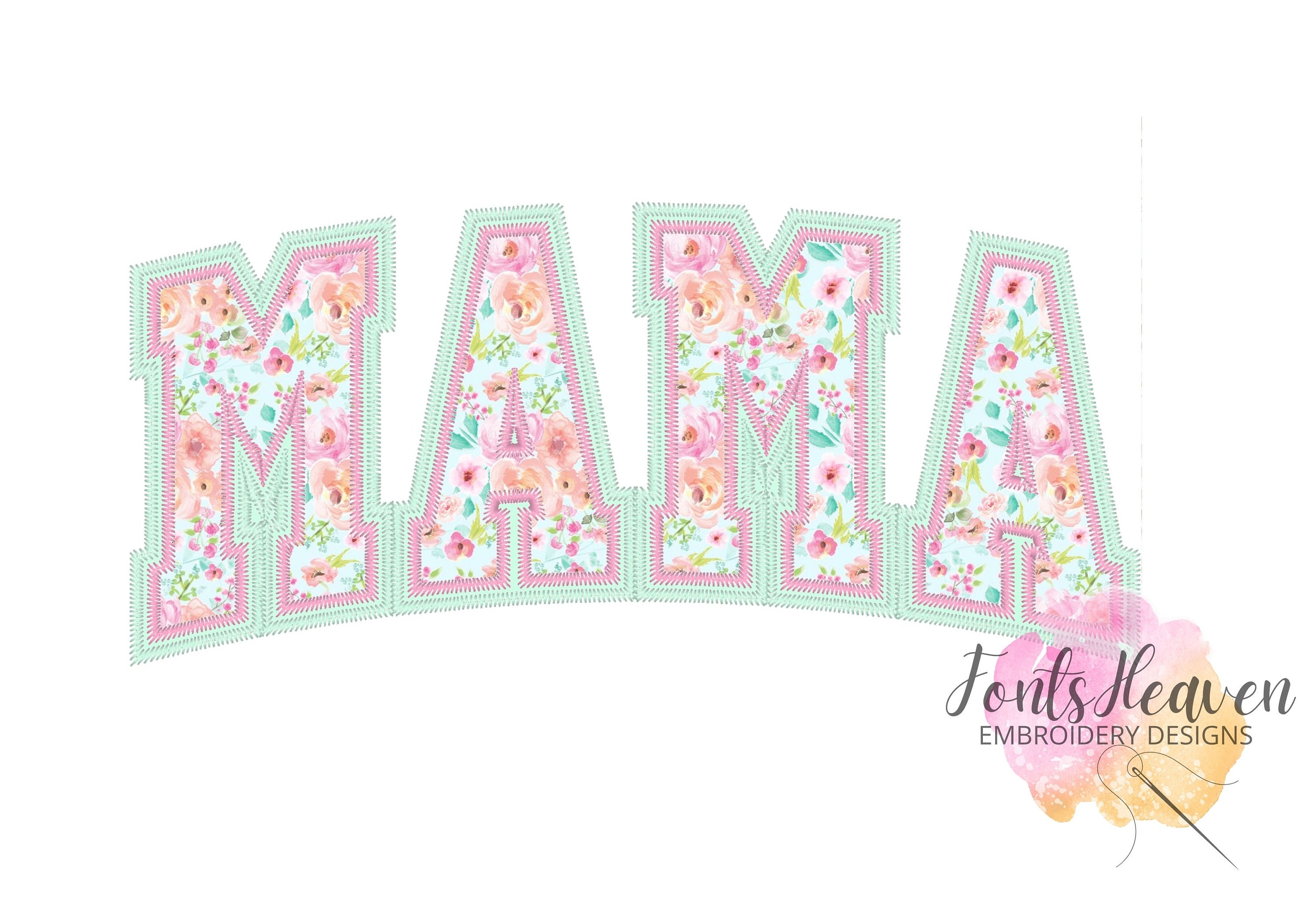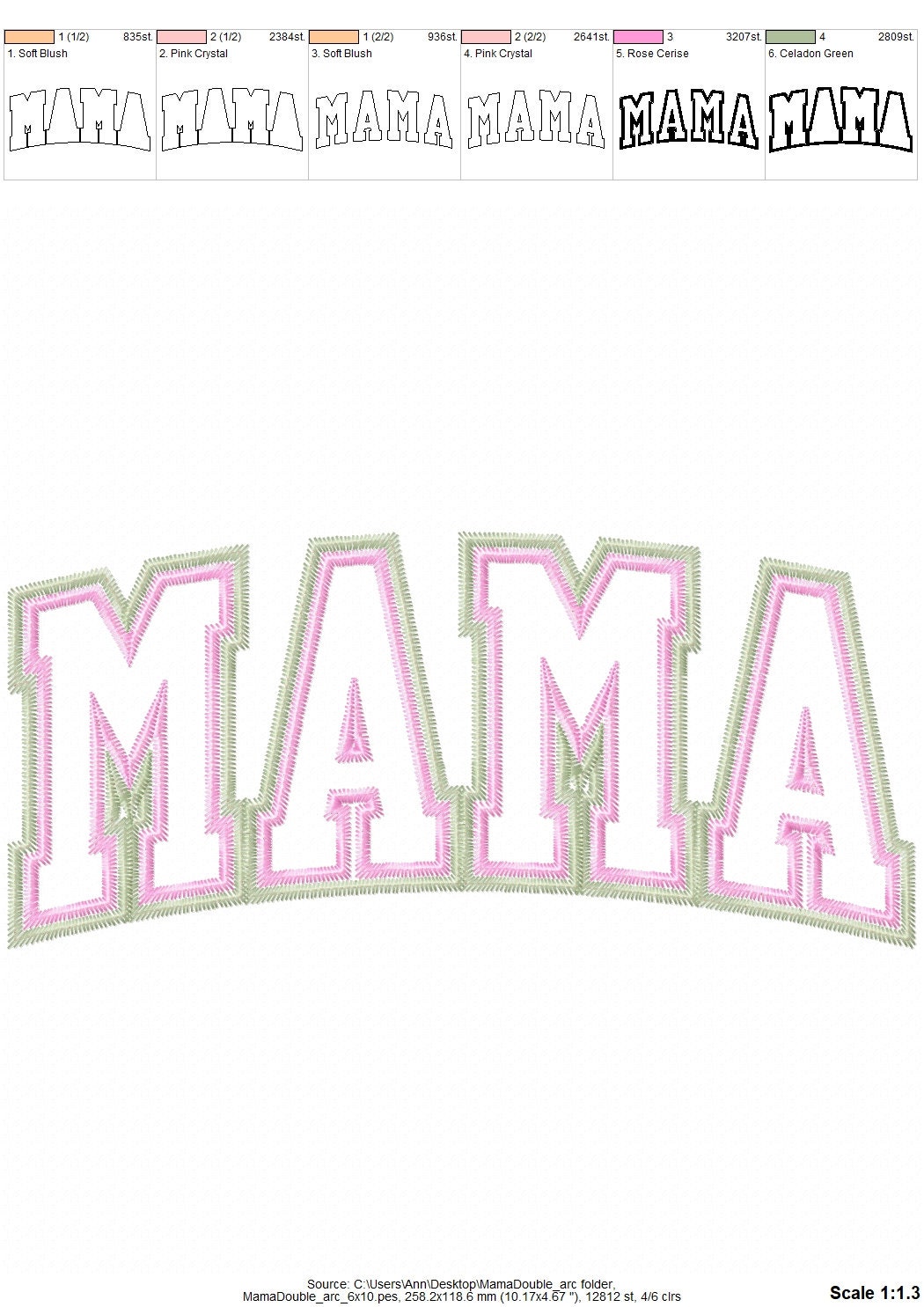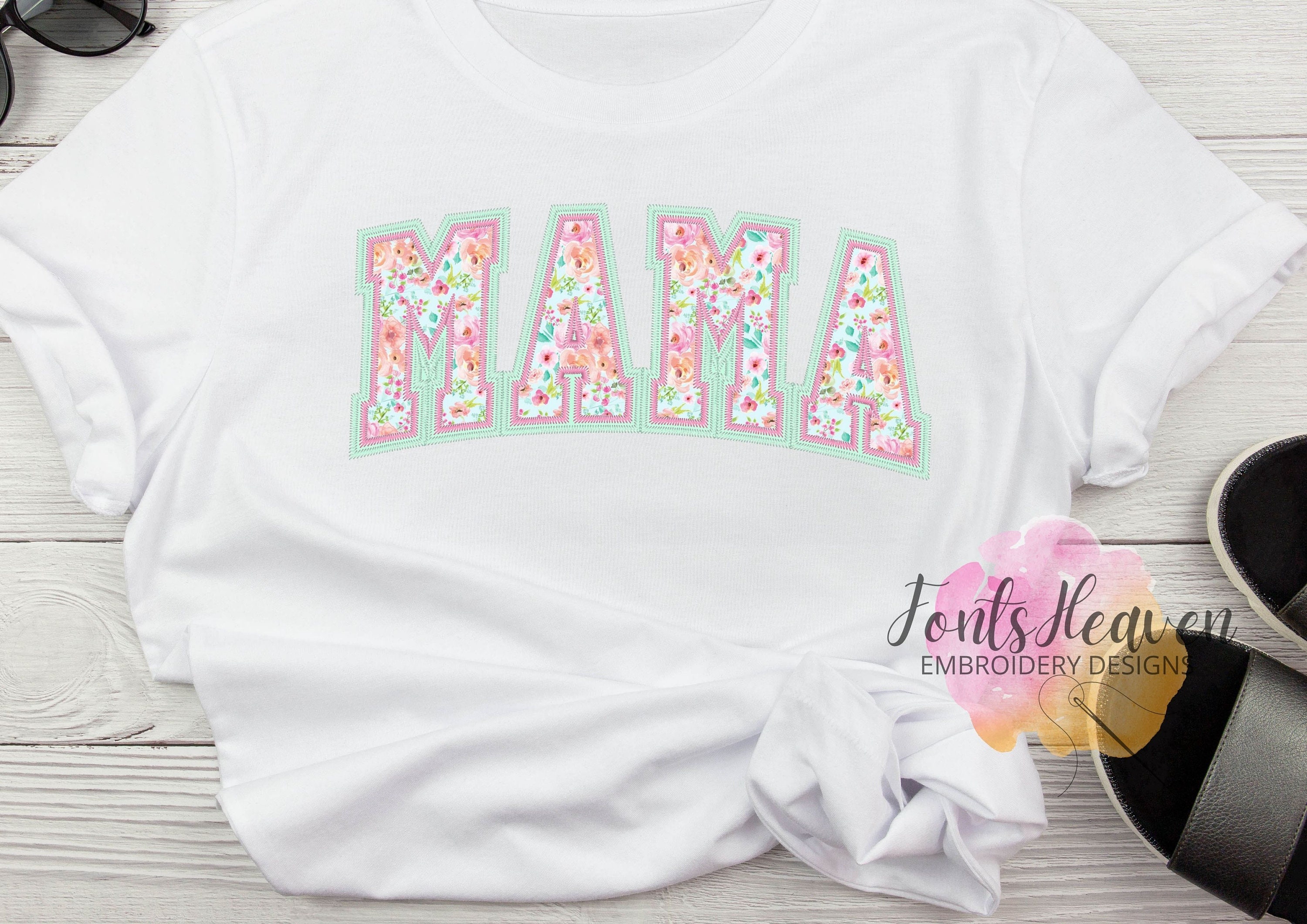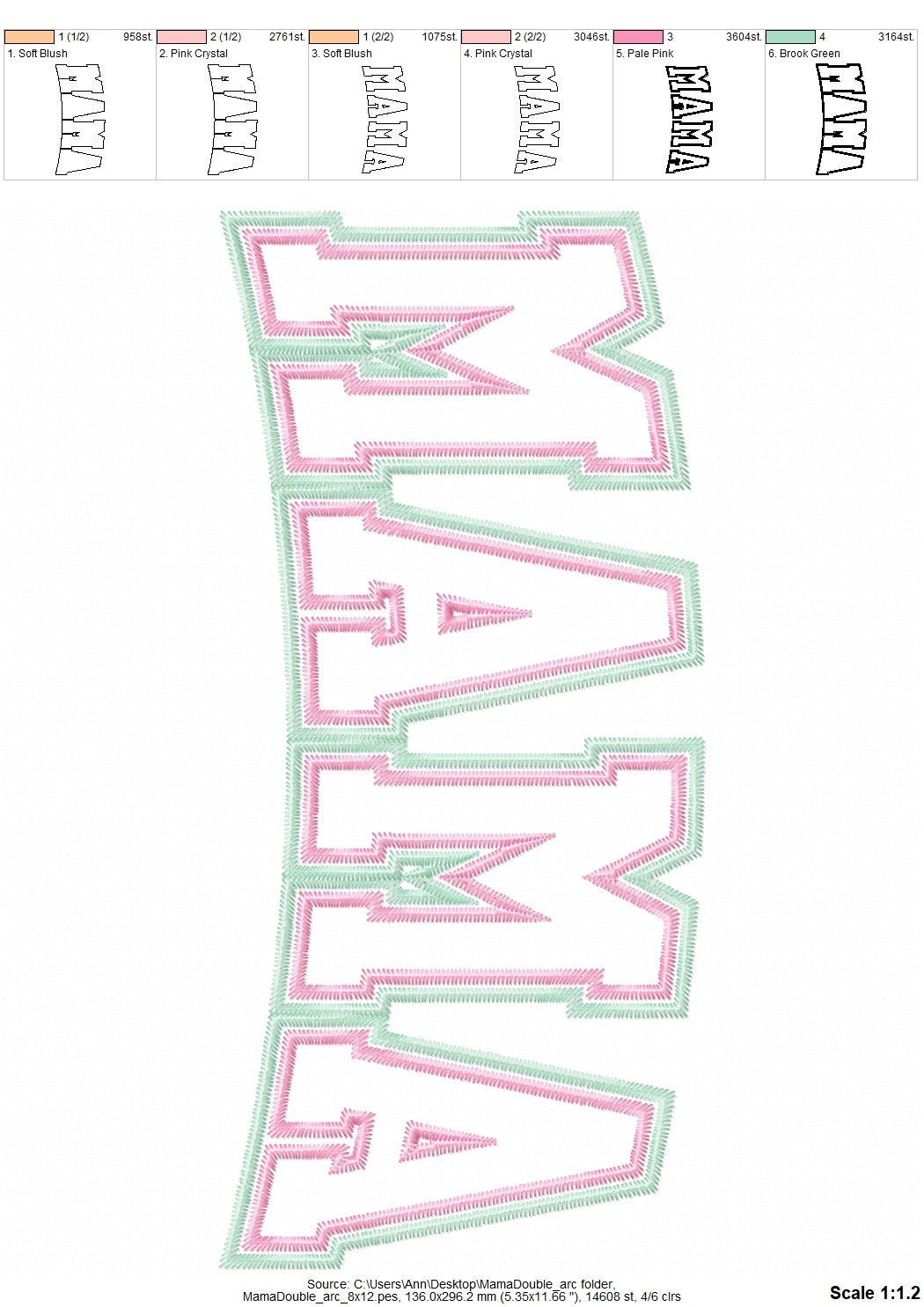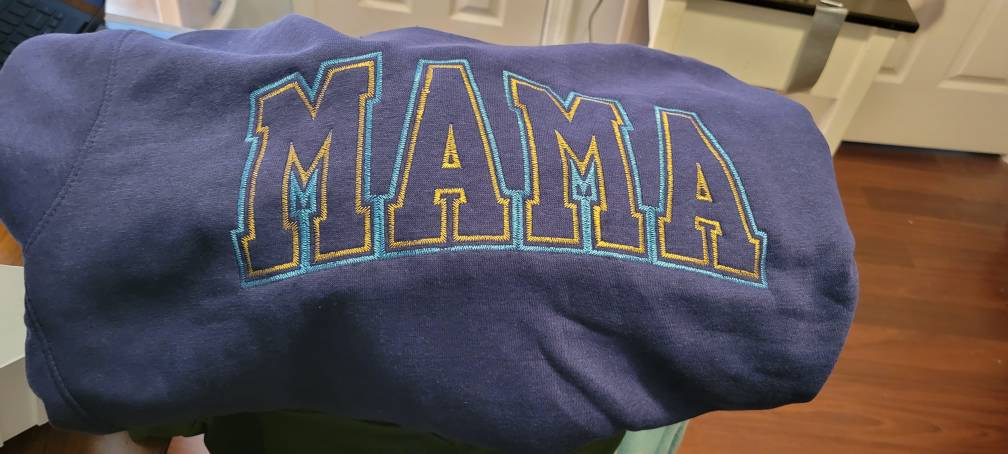
MAMA in Two Layer Applique Machine Embroidery Designs Zigzag Edge outline Block Athletic Font Mother's Day Gift idea hoop 6x10, 8x12
This is a really cute applique embroidery design with two layers of fabric and a zigzag edge stitch that will make you feel like nothing else matters.